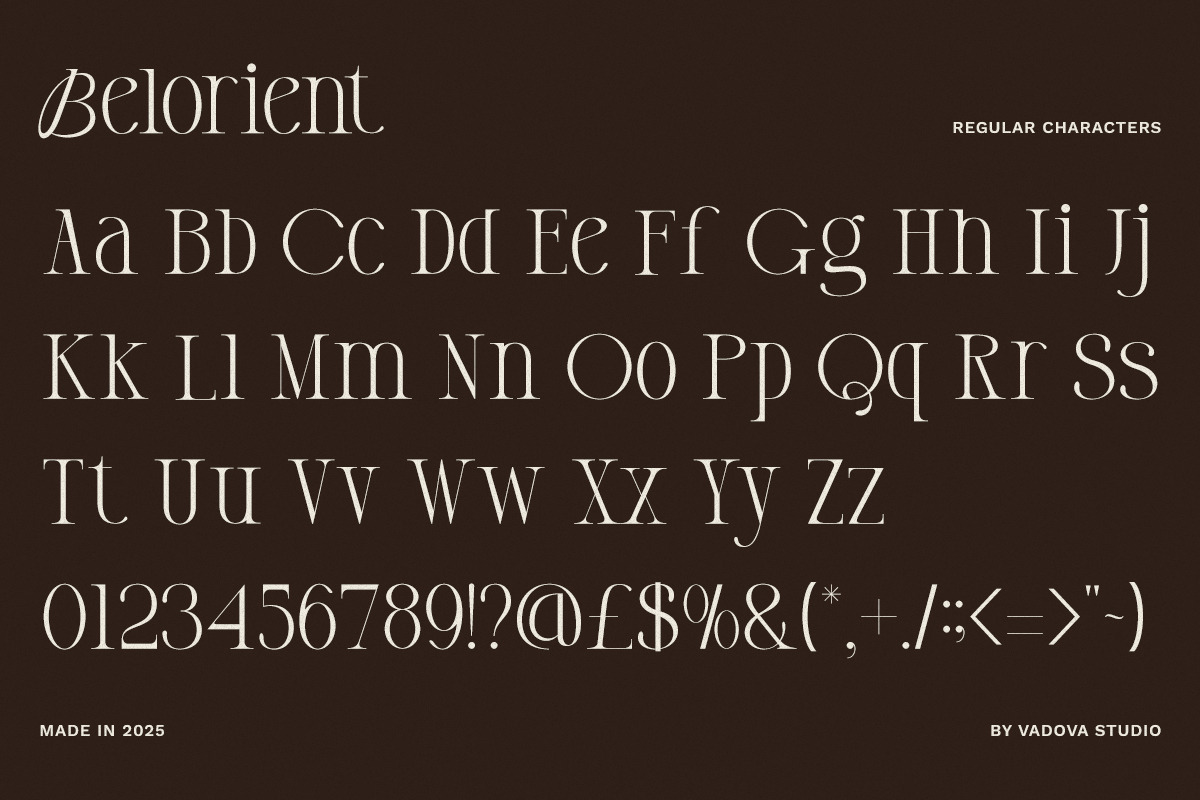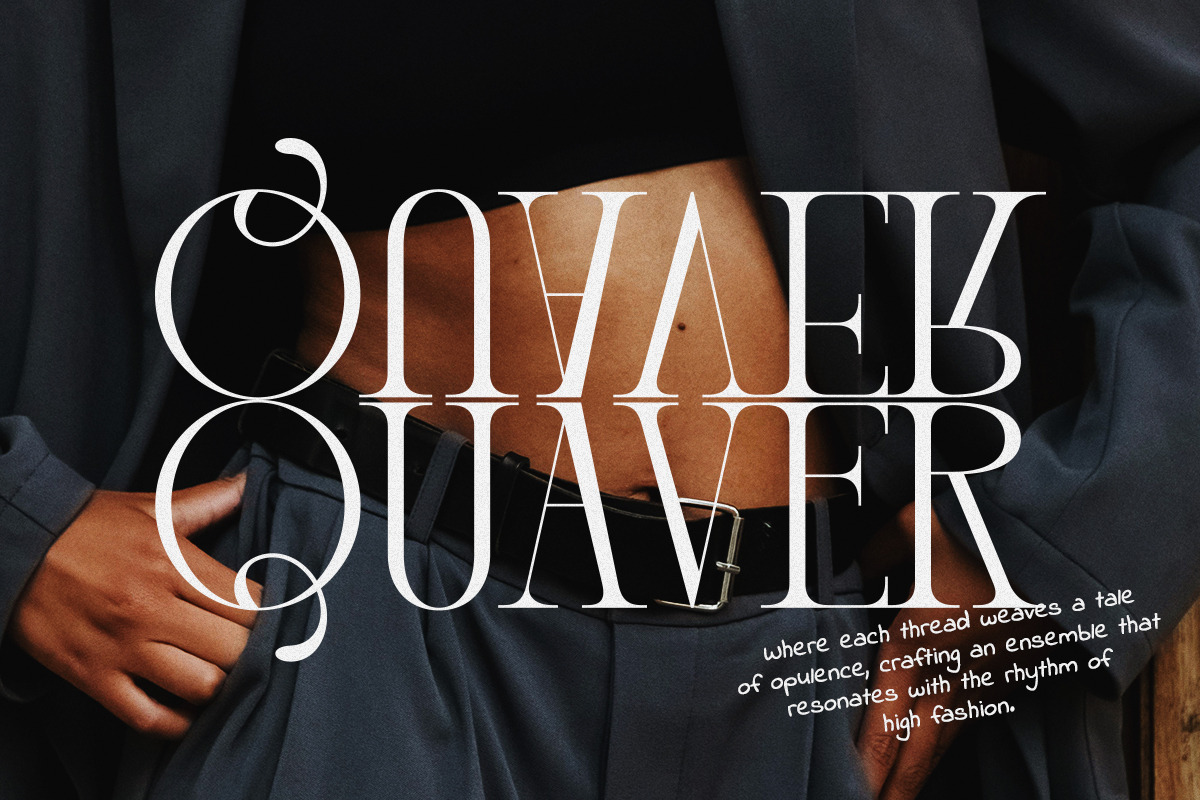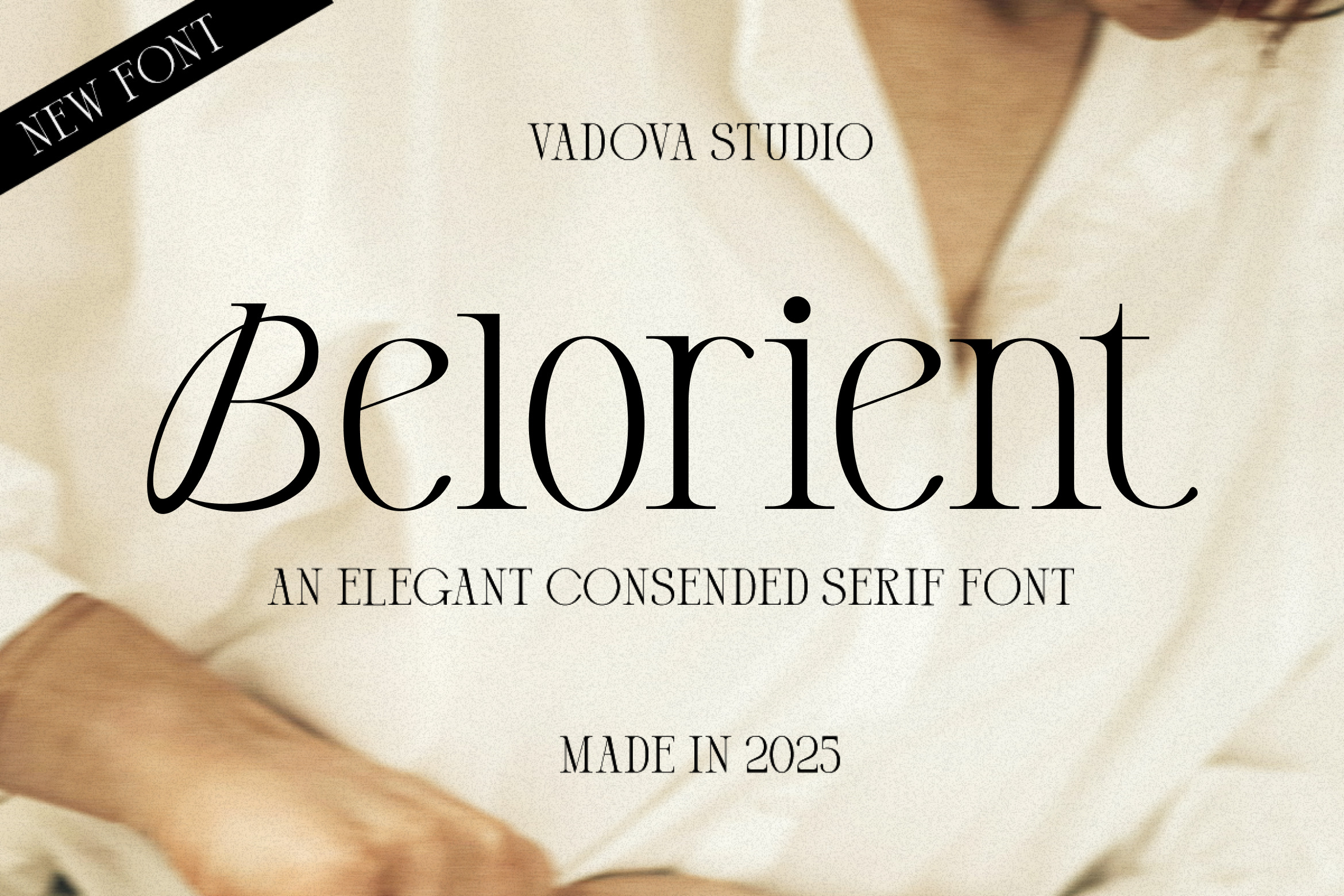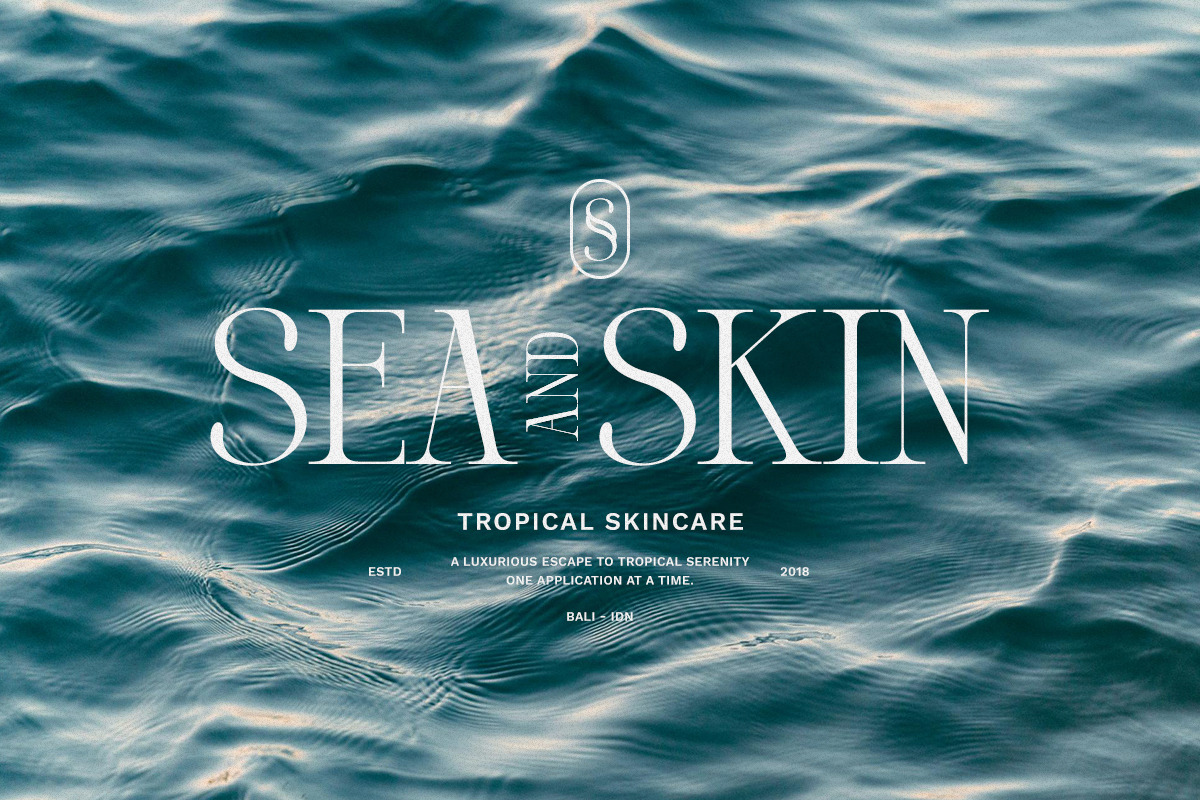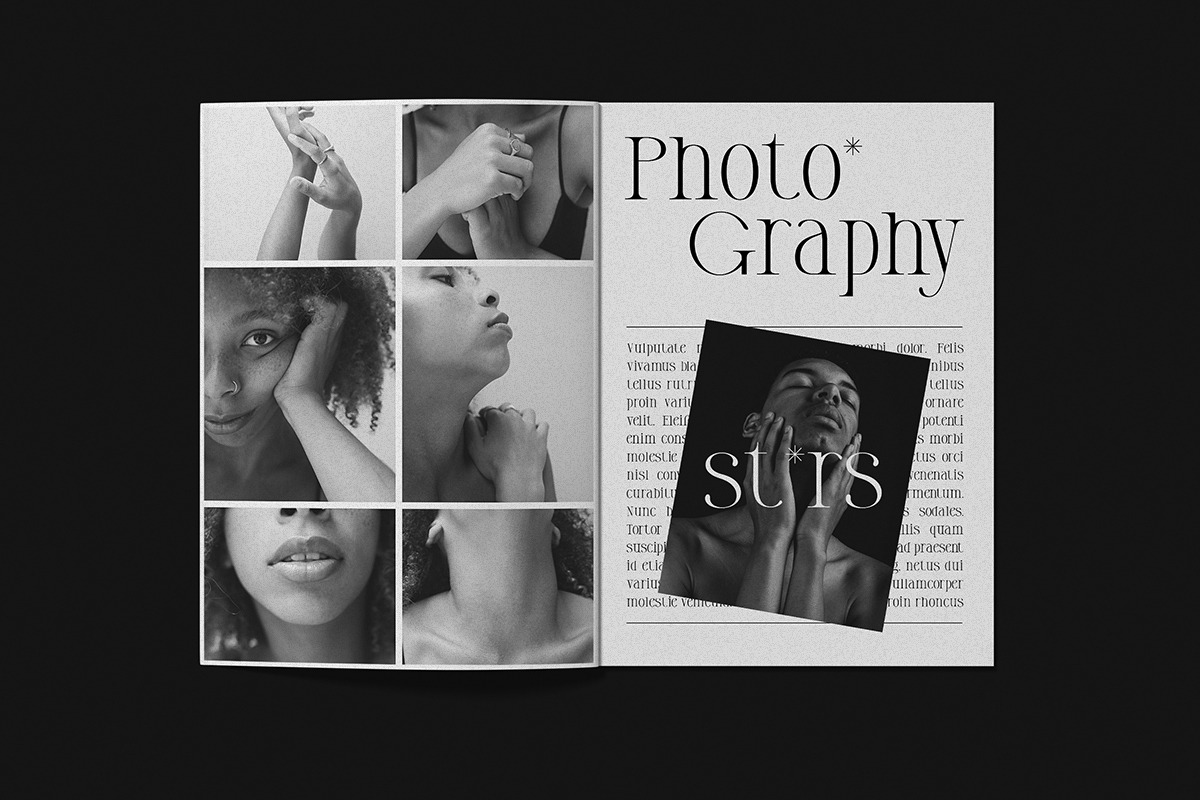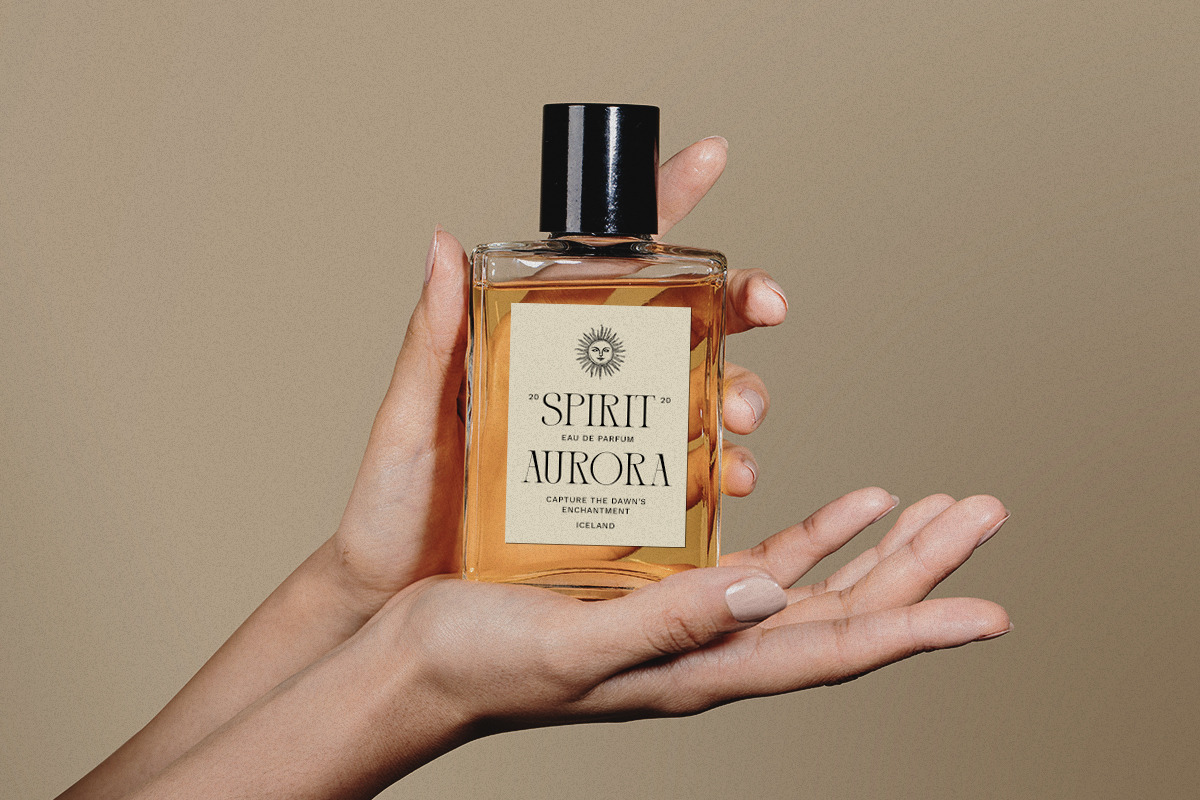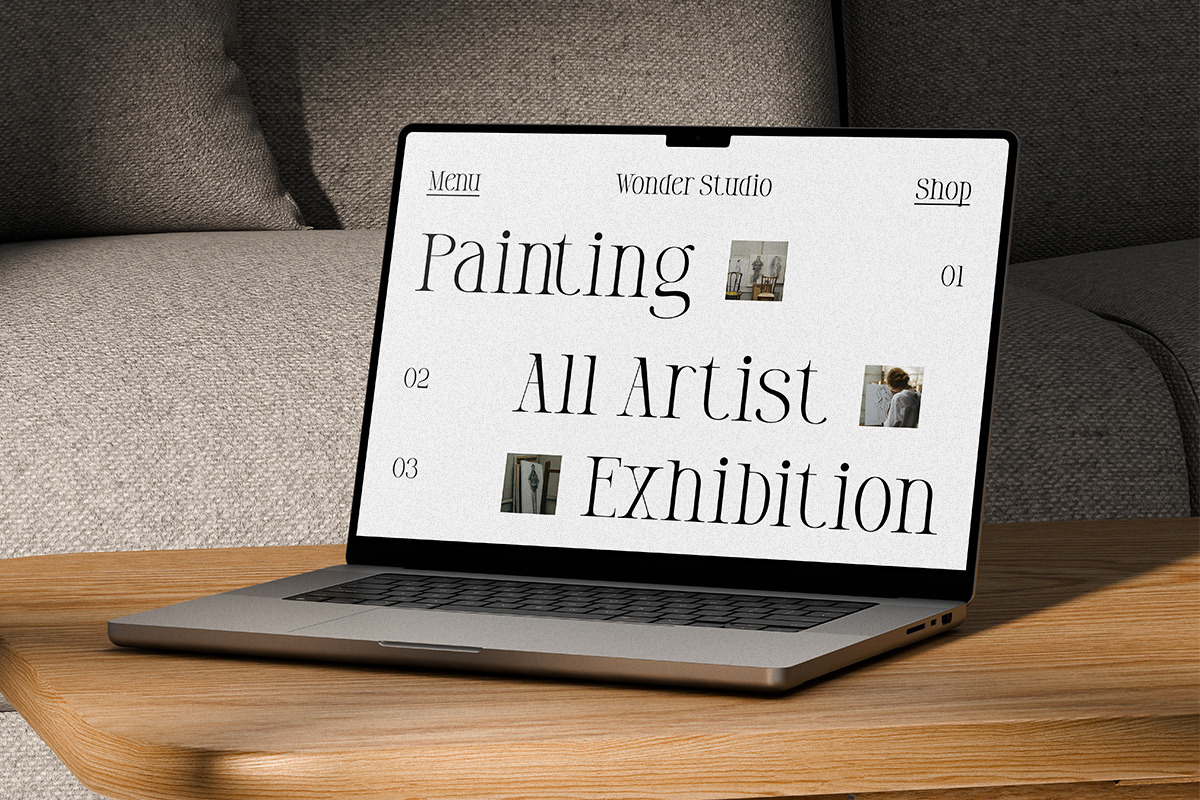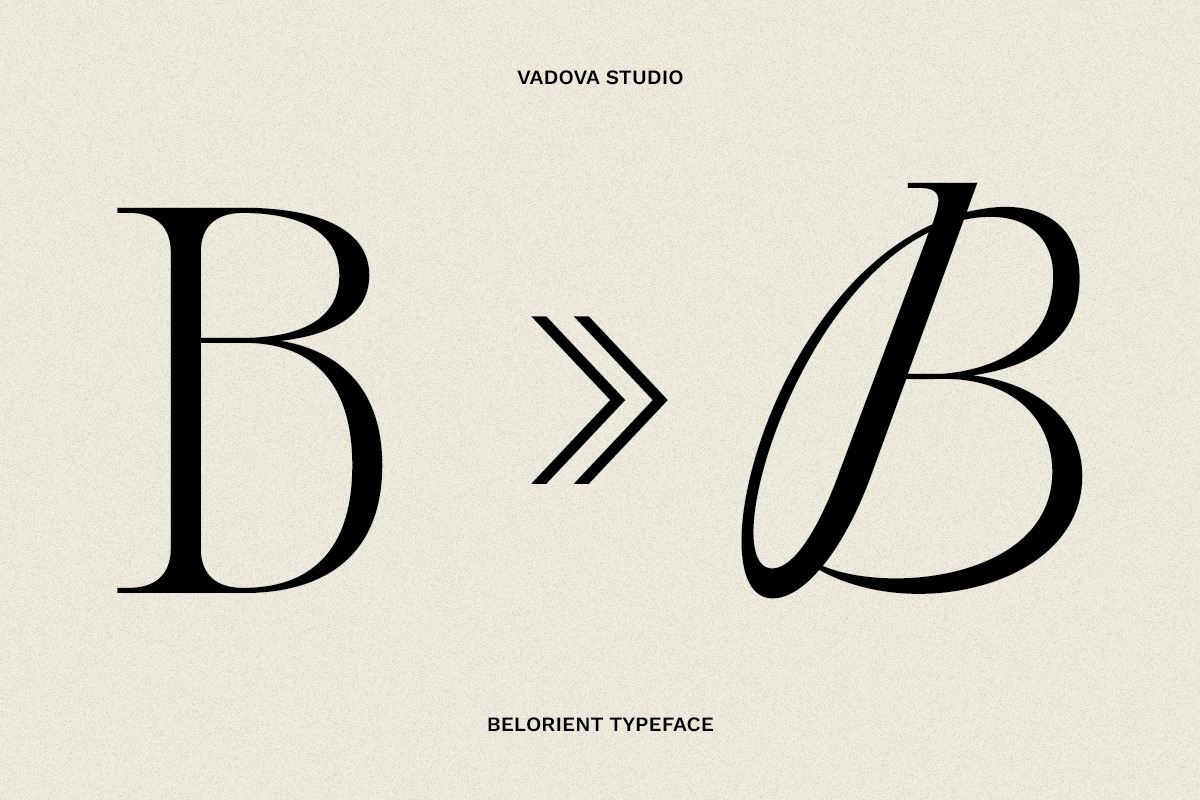
Belorient Condensed Serif Font
Belorient is an elegant condensed serif typeface crafted to bring sophistication, luxury, and modern refinement into contemporary design. With its slender proportions, graceful curves, and delicate serif details, this font captures the essence of high-end editorial typography and timeless fashion aesthetics. The design blends classic serif elegance with a modern condensed structure, allowing headlines to appear striking yet refined.
Belorient is designed for projects that demand elegance, sophistication, and high-end visual appeal. Its condensed structure makes it perfect for fashion editorials, luxury branding, magazine headlines, and premium packaging designs. The refined serif details add character and class, allowing designers to create visually striking compositions while maintaining a timeless aesthetic.
- Elegant condensed serif structure with refined proportions
- Graceful curves and delicate stroke contrast for a luxurious feel
- Stylish serif details inspired by high-fashion editorial typography
- Smooth flowing letterforms that create sophisticated visual rhythm
- Balanced spacing designed for striking headlines and elegant layouts
- Luxury brand identity systems seeking a refined and sophisticated tone
- Fashion editorials, magazines, and high-end lookbook layouts
- Elegant logo design and premium brand typography
- Beauty product packaging and boutique label design
- Stylish social media graphics and luxury marketing visuals